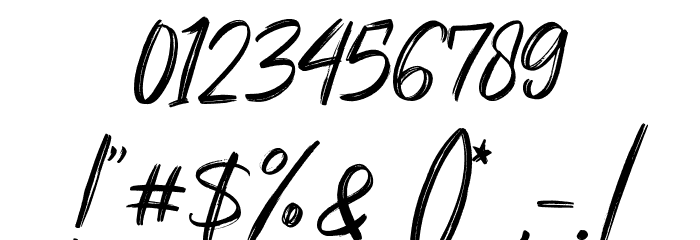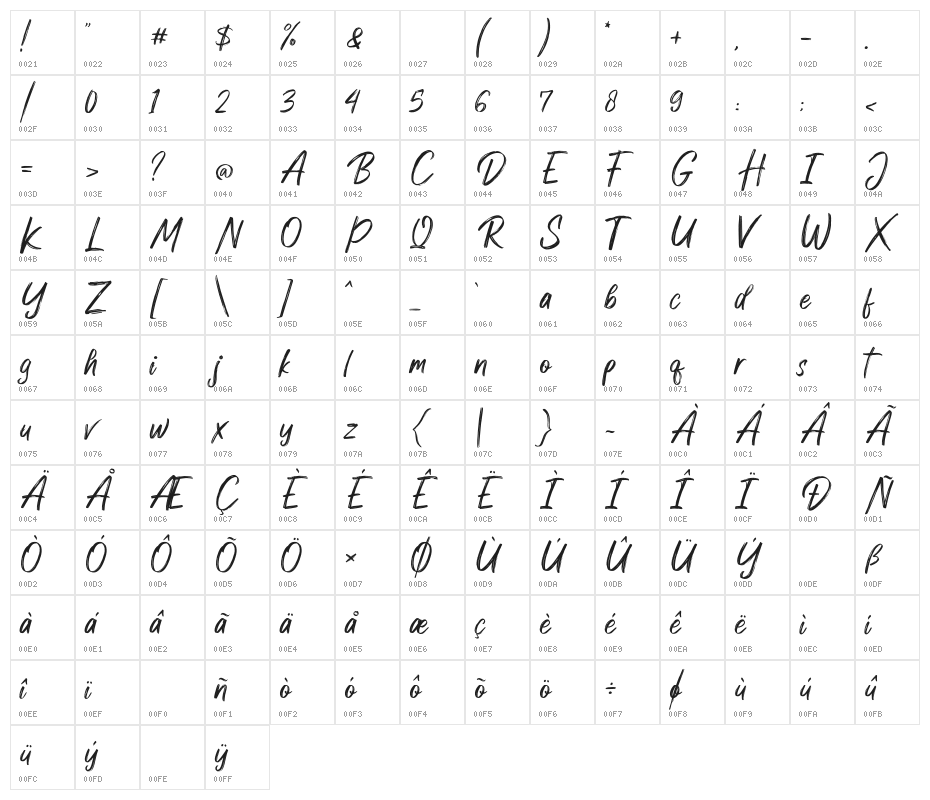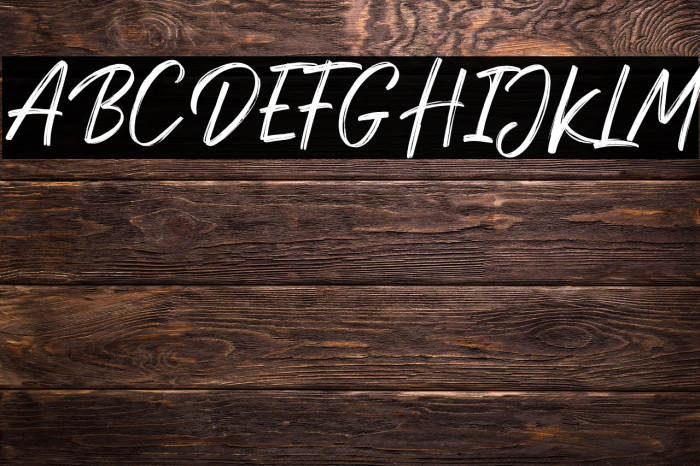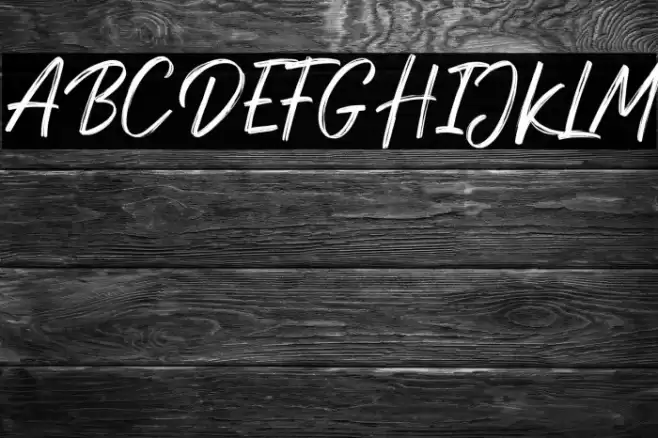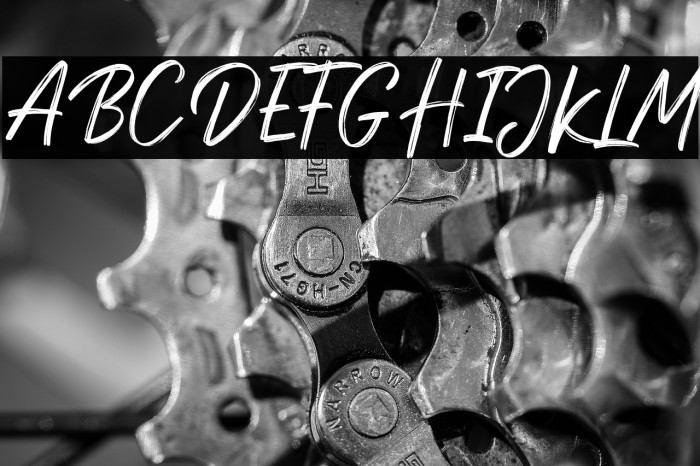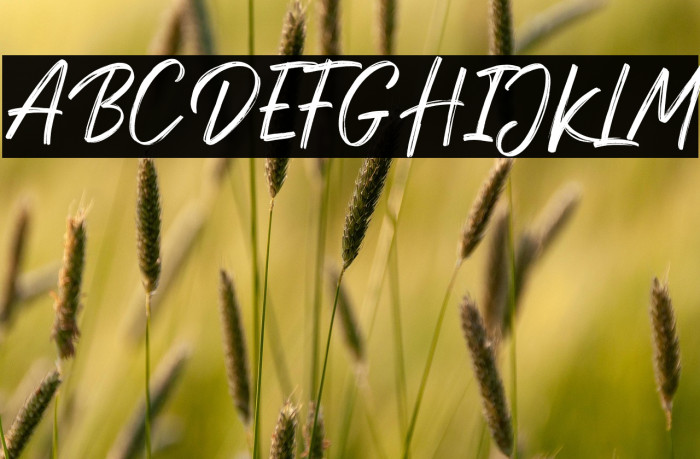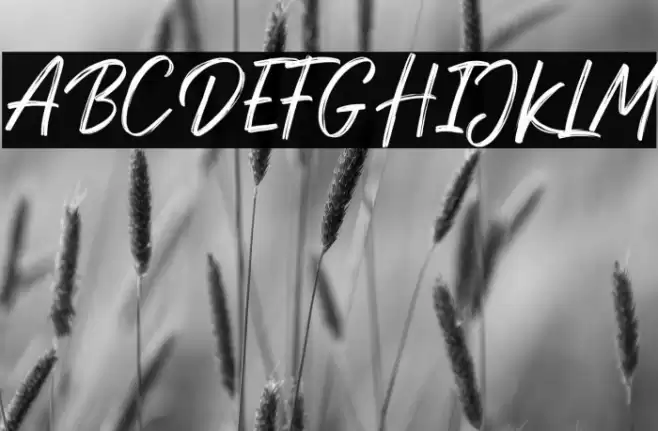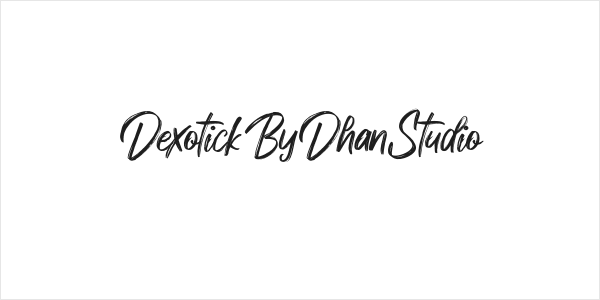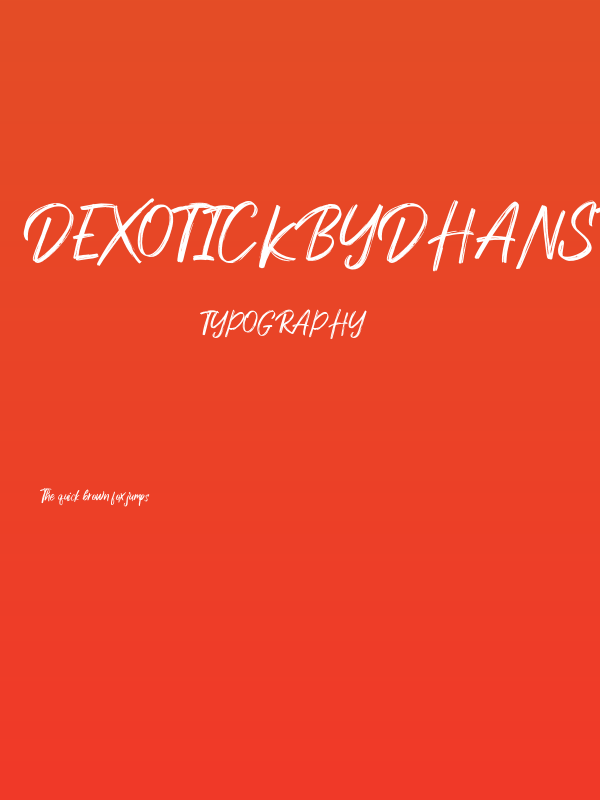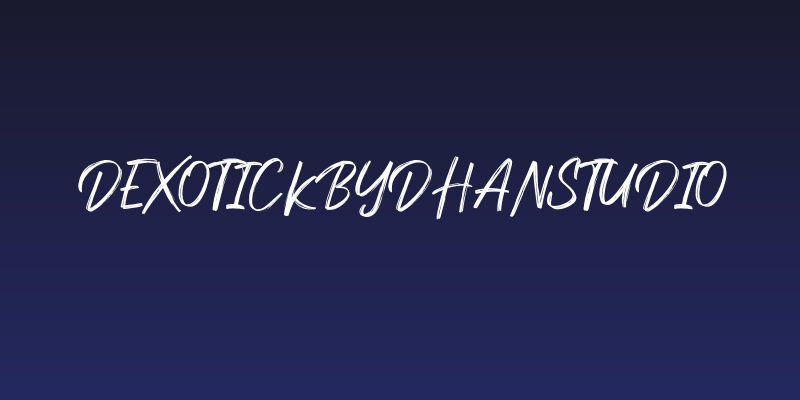
DexotickByDhanStudio Font
DexotickByDhanStudio Description
This font features a dynamic and expressive handwritten style, characterized by its fluid and energetic strokes. The uppercase letters are bold and slightly slanted, giving a sense of movement and spontaneity. The lowercase letters maintain a consistent flow, with some characters extending below the baseline, adding to the font's casual and artistic appeal. The numerals are well-integrated, matching the overall style with their curved and slightly irregular forms. Special characters are creatively designed, enhancing the font's versatility for various design applications.